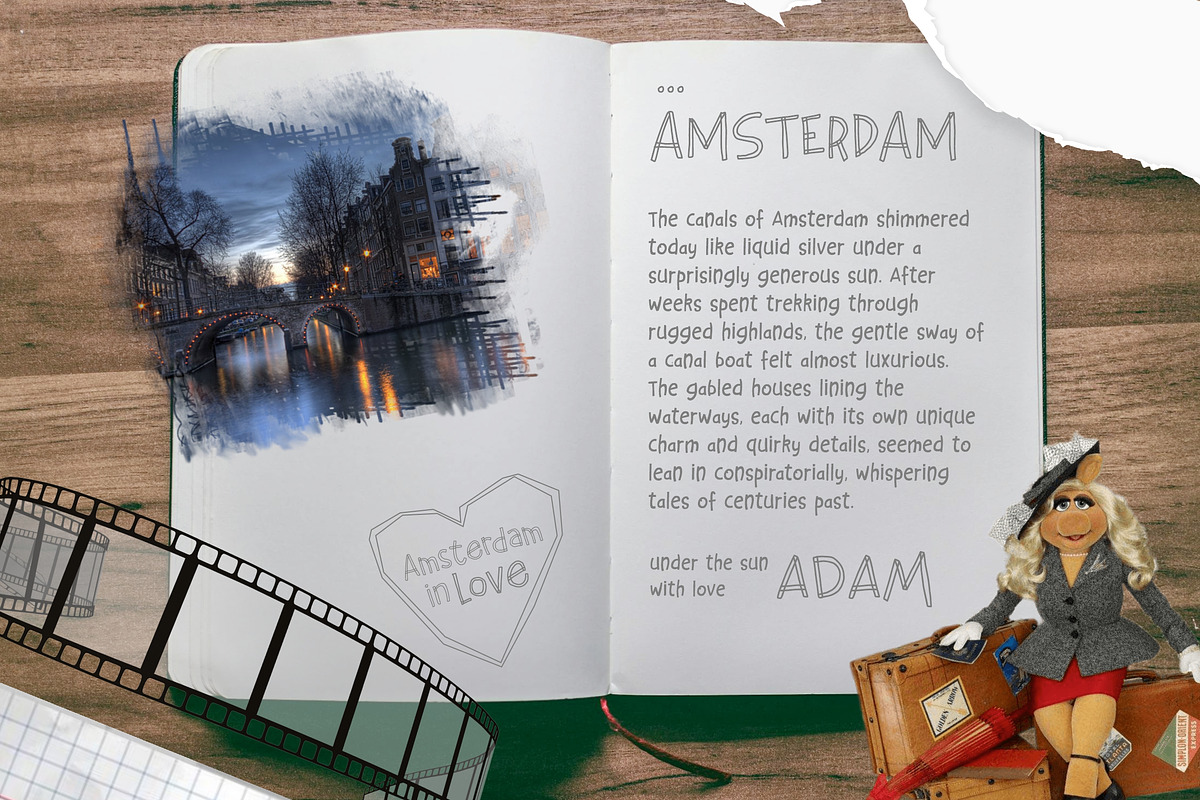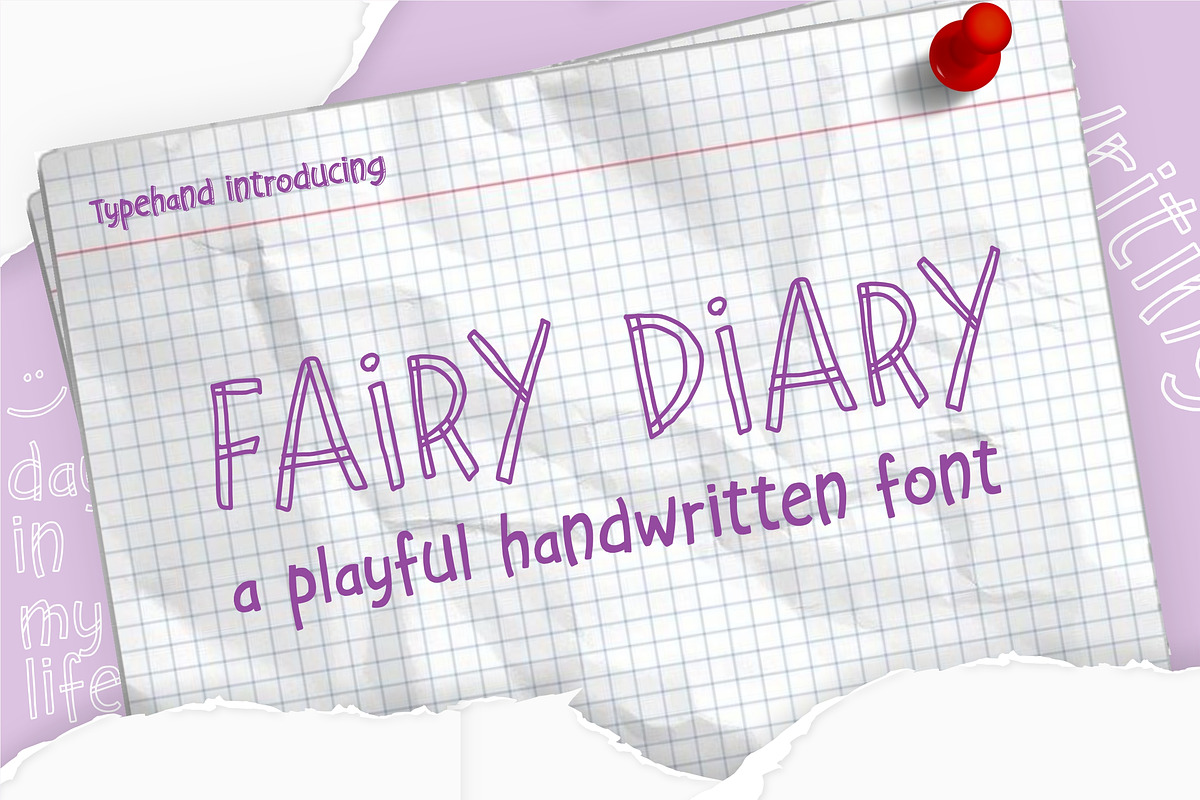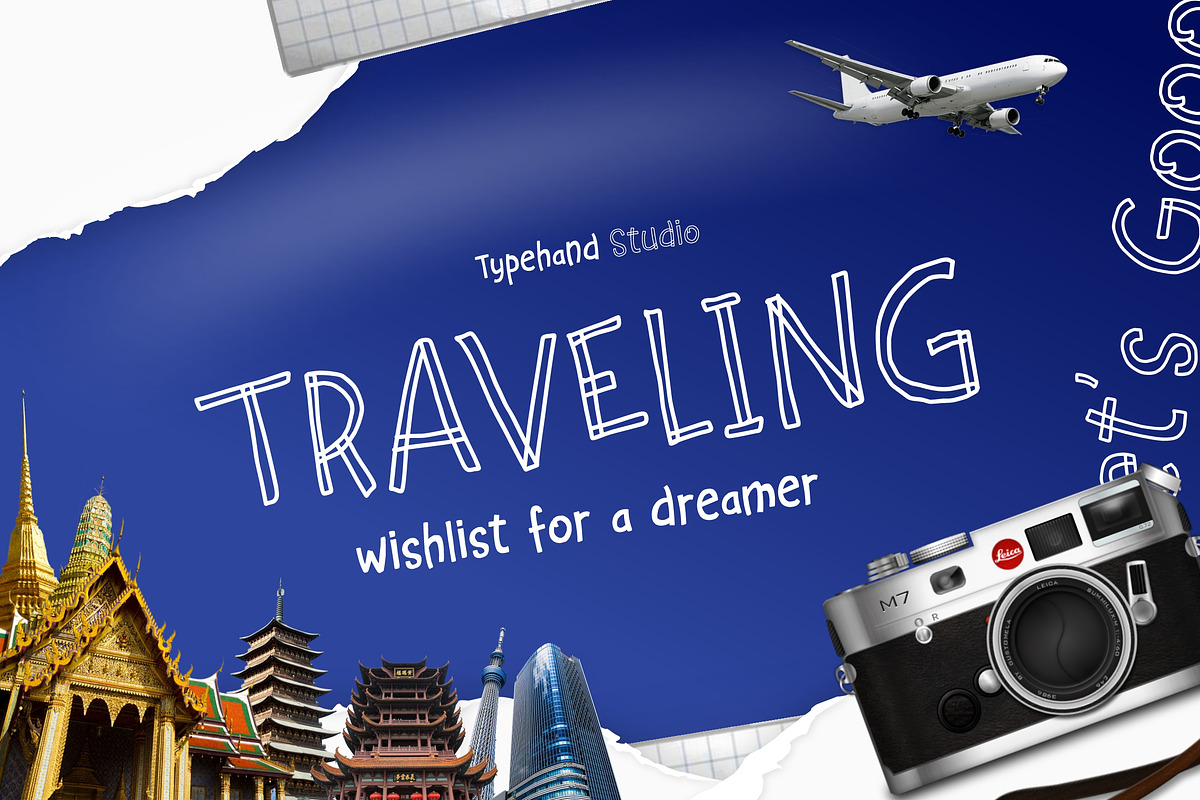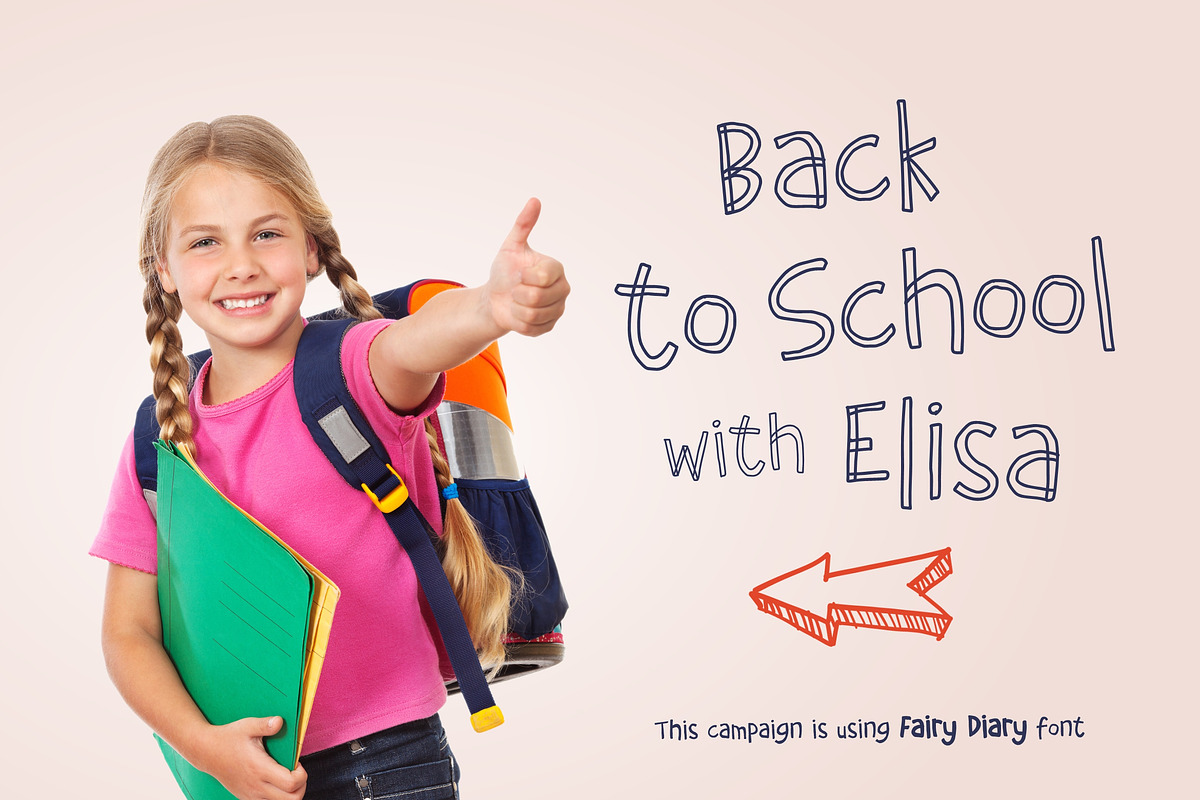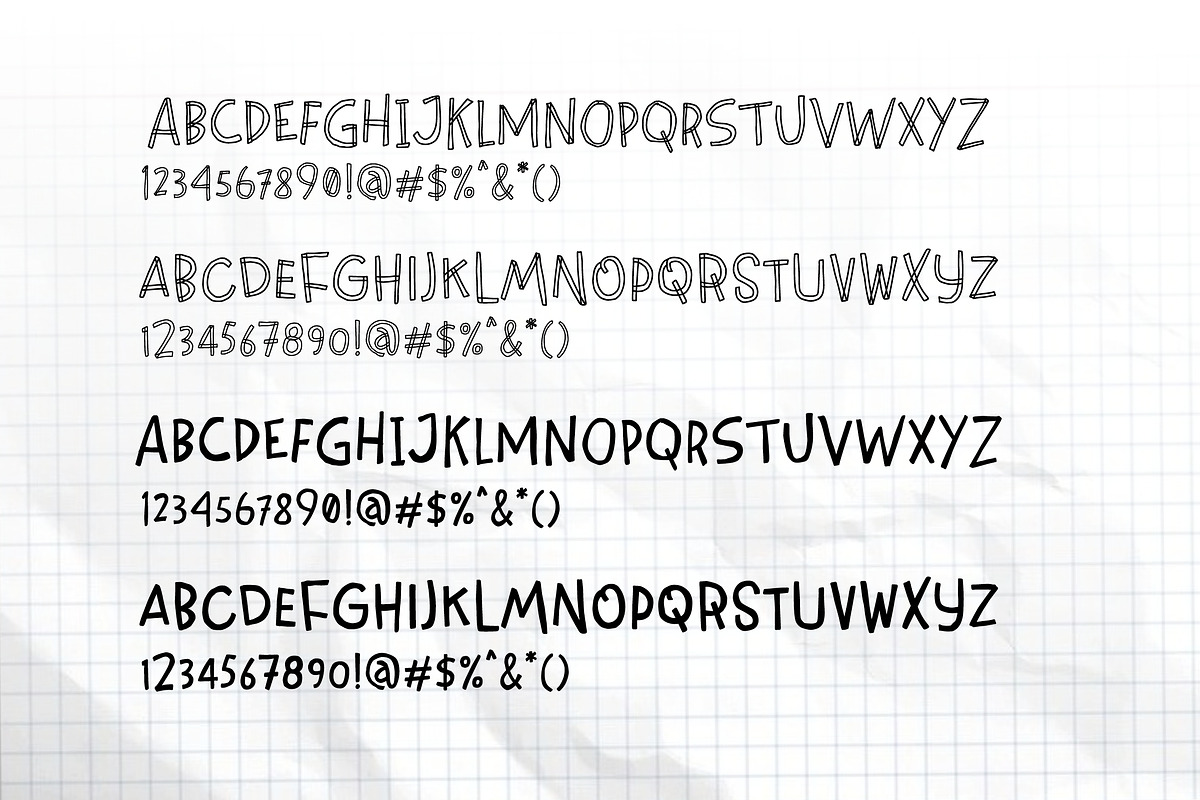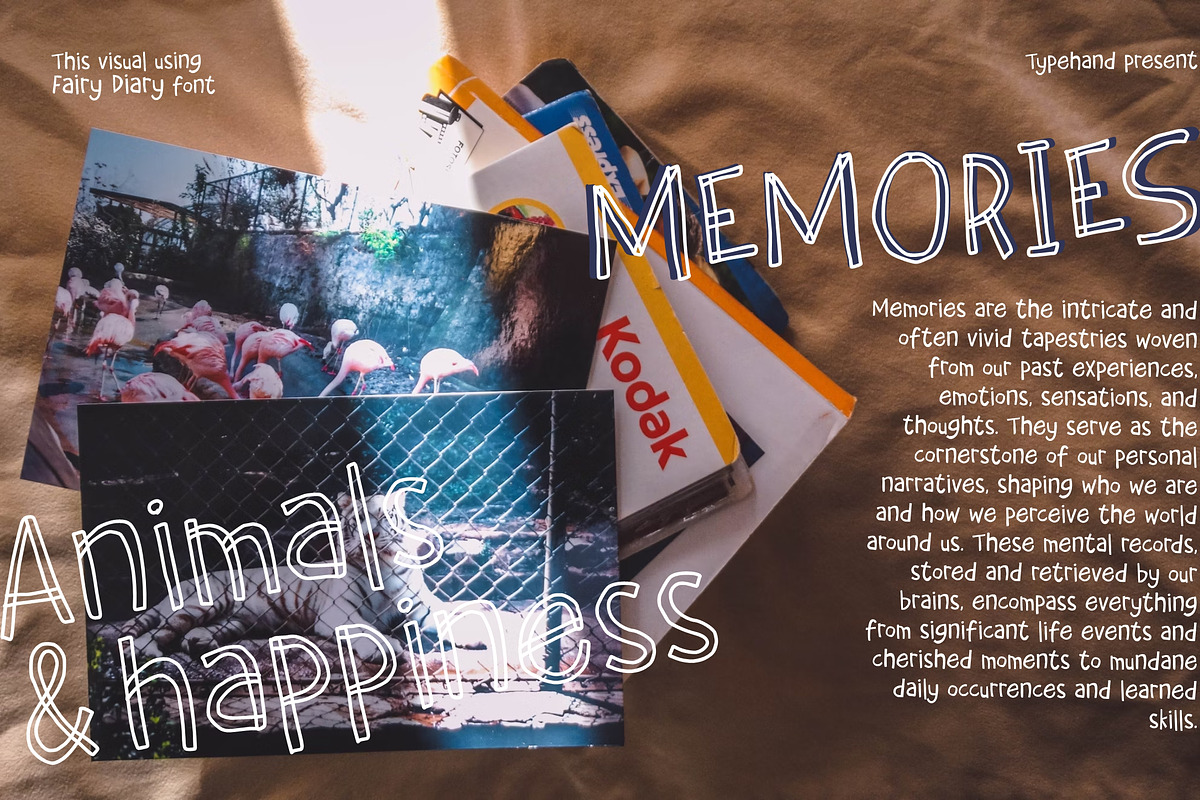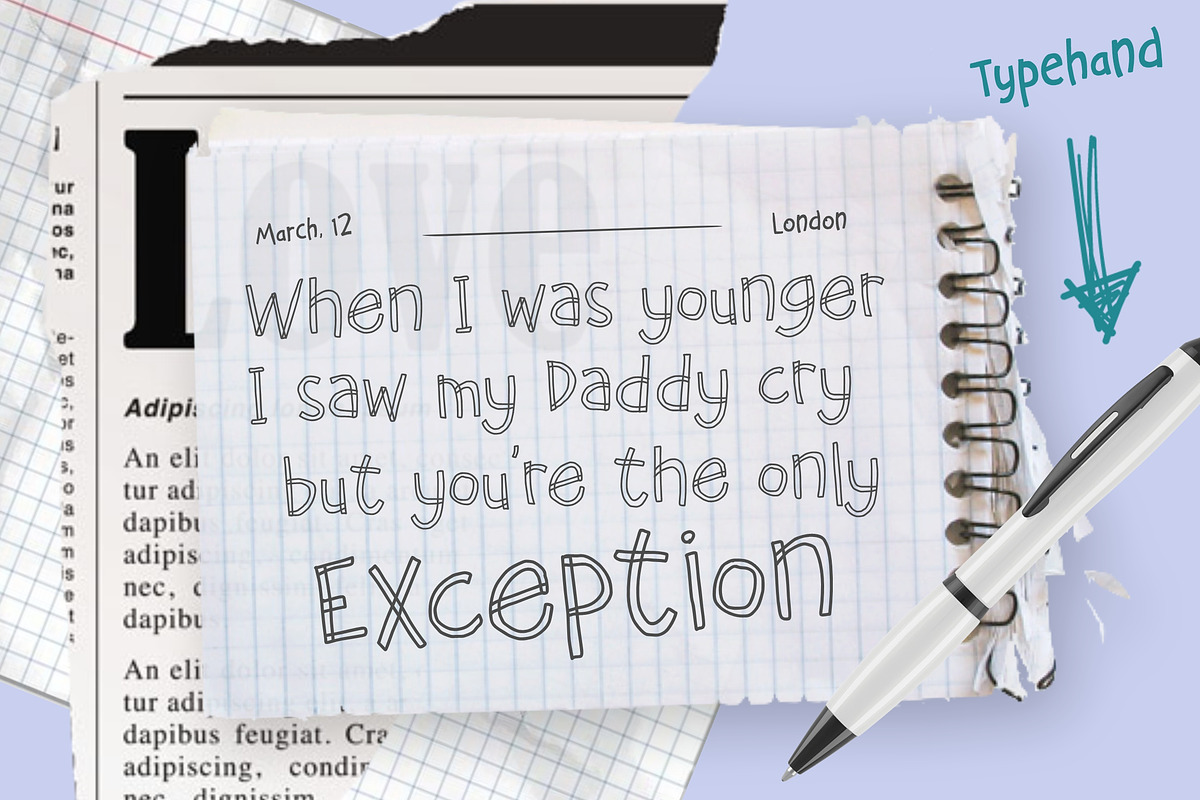
Fairy Dairy - Playful Handwritten
Say hello to Fairy Diary — a playful handwritten font designed to bring a touch of magic to your creative projects! With its fun, friendly style and clean lines, Fairy Diary is perfect for kids' books, school projects, planners, journals, posters, and more.
This font comes with multiple styles to match your design needs, whether you want something light and sketchy or bold and bouncy. Inspired by doodles and diary entries, it feels just like handwriting—making your text feel personal and full of character.
Fairy Diary is easy to use, beginner-friendly, and ready to make your designs stand out. Whether you’re creating for print or digital, this font adds charm, warmth, and creativity.